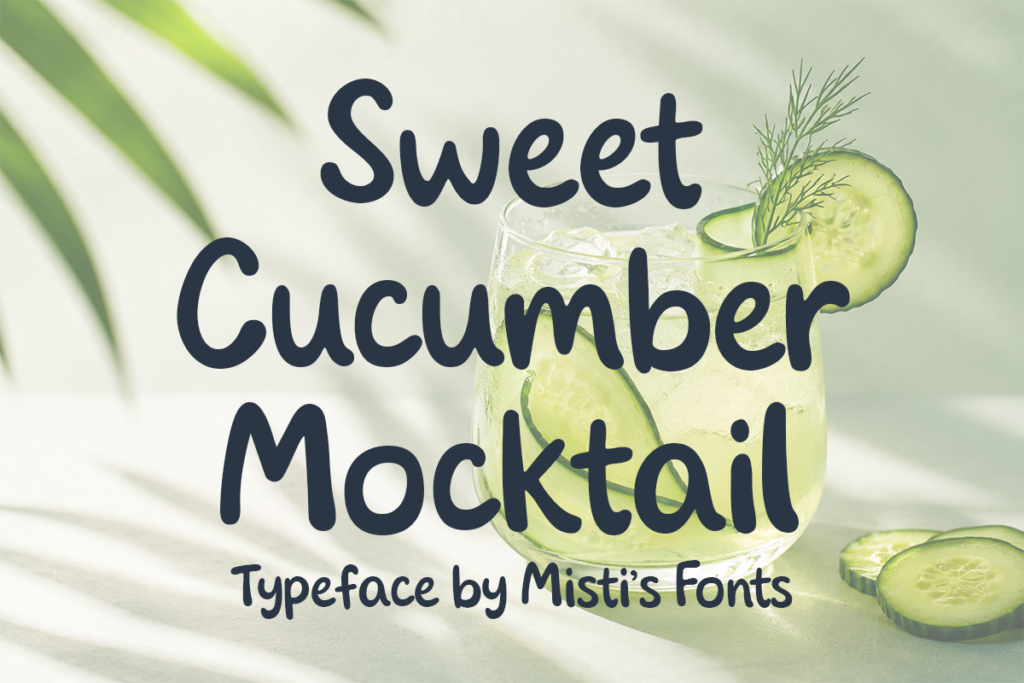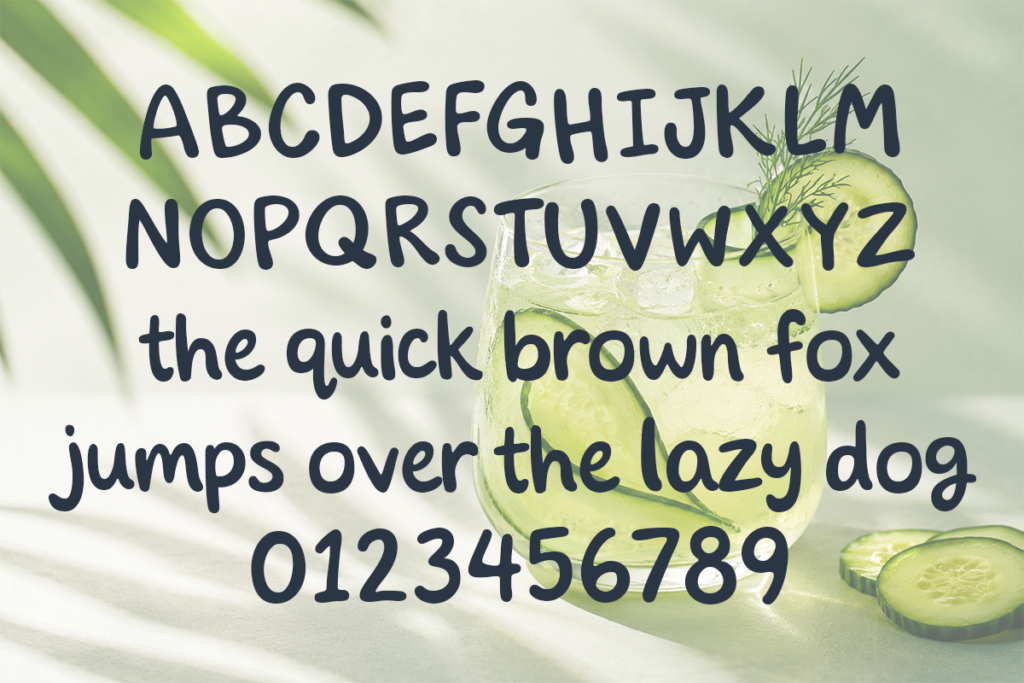
Uncover a charming blend of whimsicality and boldness with the Sweet Cucumber Mocktail font. This captivating handwritten font radiates a summer vibe, infused with a distinct bold stroke that captures attention almost instantly. Its adorable, sweet appeal brings forth a playful twist that makes every word a delightful spectacle. Whether it’s for an easy-going summertime project or an invitation exuding sweetness, Sweet Cucumber Mocktail is the playful font you need. The boldness dances with the cuteness creating a unique handwriting style font that embodies both joy and bold expressiveness. Immerse in the whimsical world of Sweet Cucumber Mocktail font and make your designs burst with fun, creativity and a hint of bold summer spirit.